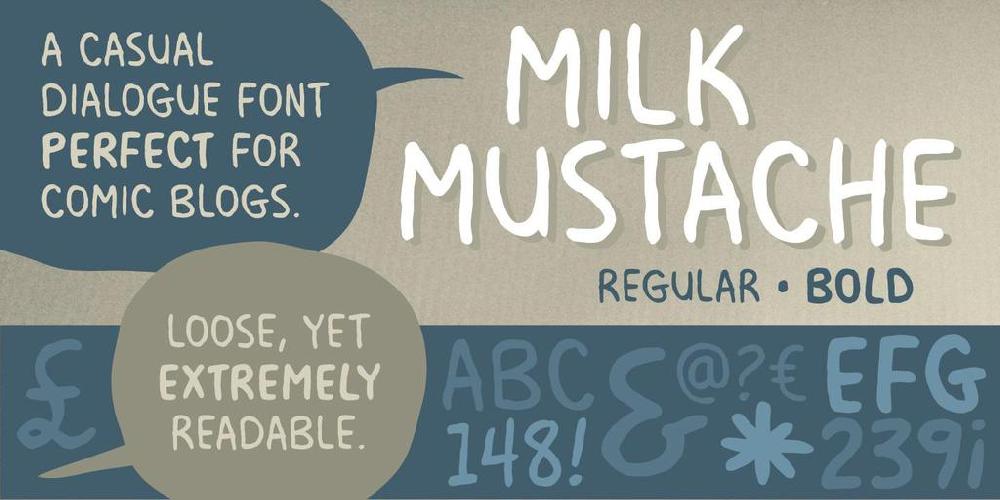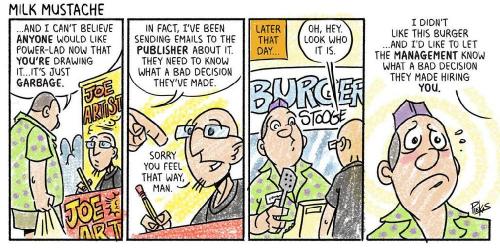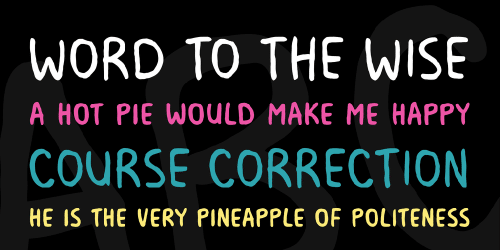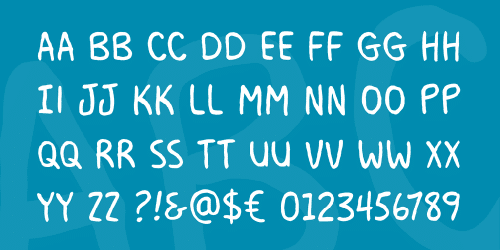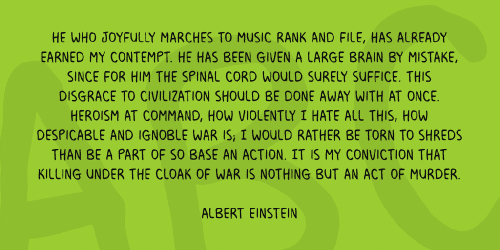
Milk Mustache BB Font Family
Milk Mustache BB Font Family is A casual dialogue font perfect for blog-style comics. Loose, but still extremely readable. Comes with Regular and Bold.